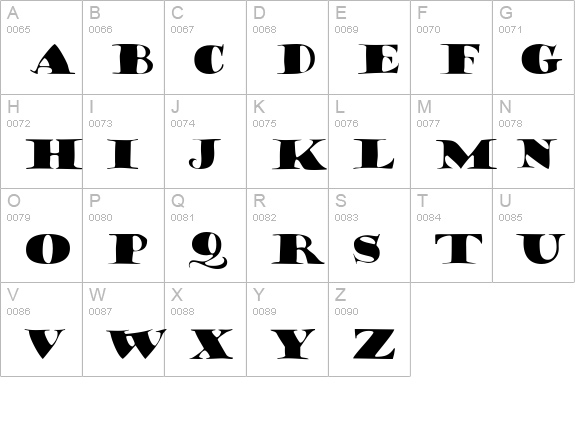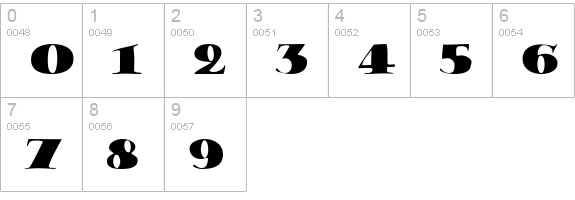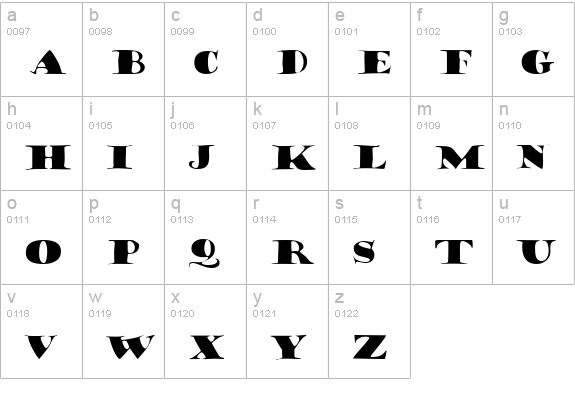
Hermann Font Details
Hermann font is a versatile and stylish typeface that exudes elegance and sophistication. With its clean lines and modern design, Hermann font is perfect for a wide range of projects, from branding and advertising to packaging and web design. This font strikes the perfect balance between classic and contemporary, making it a timeless choice for any creative endeavor. The best part about Hermann font is that it is completely free to download at FontsMarket.com. Whether you're a seasoned designer looking to add a new font to your collection or a beginner searching for the perfect typeface for your project, Hermann font is the ideal choice. Download it today and elevate your designs with this stunning and versatile font.